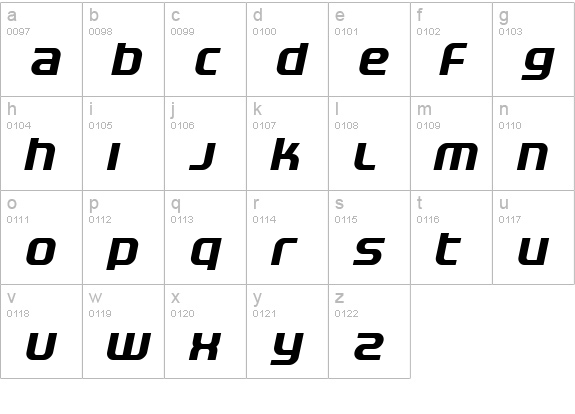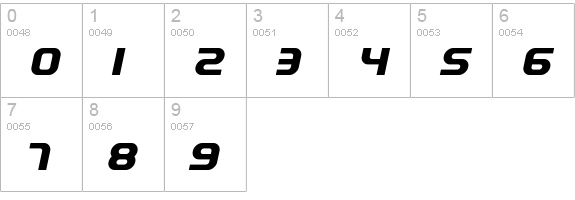
Electrofied Italic Font Details
Electrofied Italic is a distinctive, italic variant in the Electrofied typeface family \xE2\x80\x94 well suited to design and typography projects.
Introducing Electrofied Italic font - a dynamic and electrifying typeface that is sure to make your designs stand out. With its sleek and modern aesthetic, this font is perfect for adding a bold and futuristic touch to any project. The unique italicized style of Electrofied Italic exudes energy and creativity, making it a versatile choice for a wide range of design applications. What's even better is that Electrofied Italic font is available for free download at FontsMarket.com. This means you can easily access this eye-catching font and incorporate it into your projects without any cost. Don't miss out on the opportunity to enhance your designs with the electrifying charm of Electrofied Italic font - download it today and let your creativity shine!